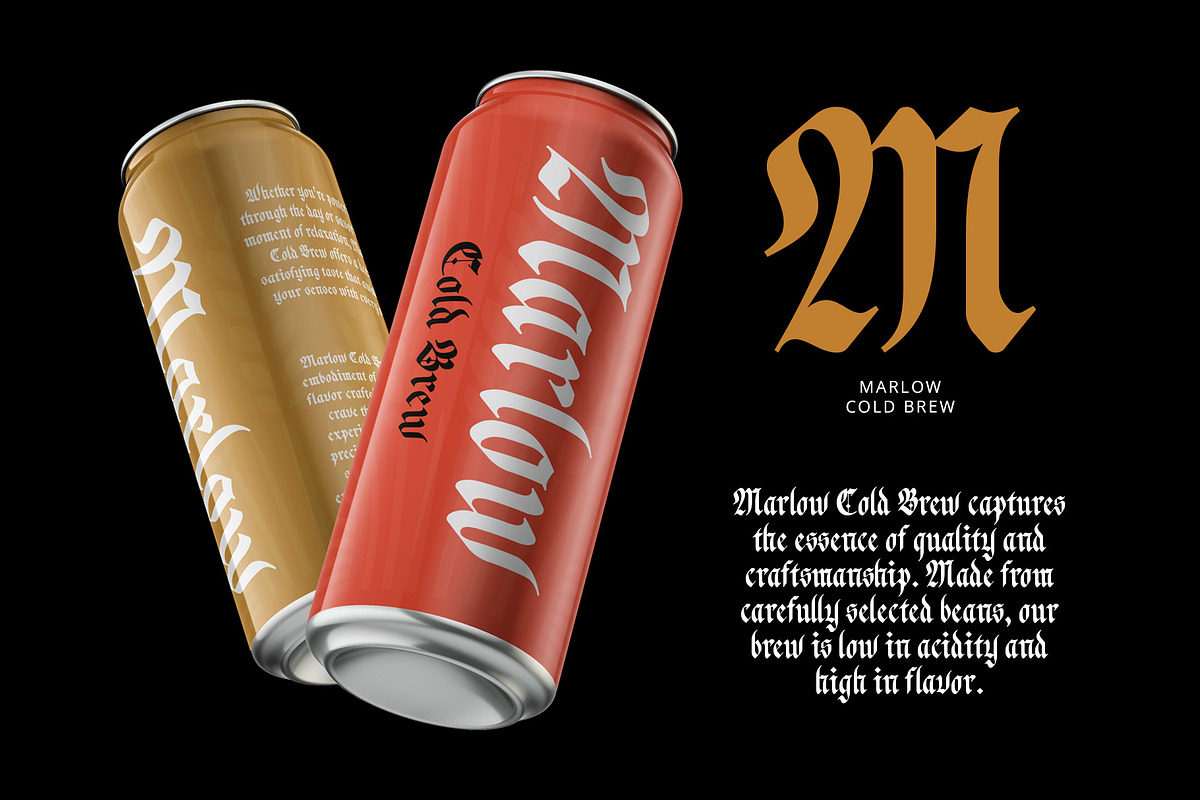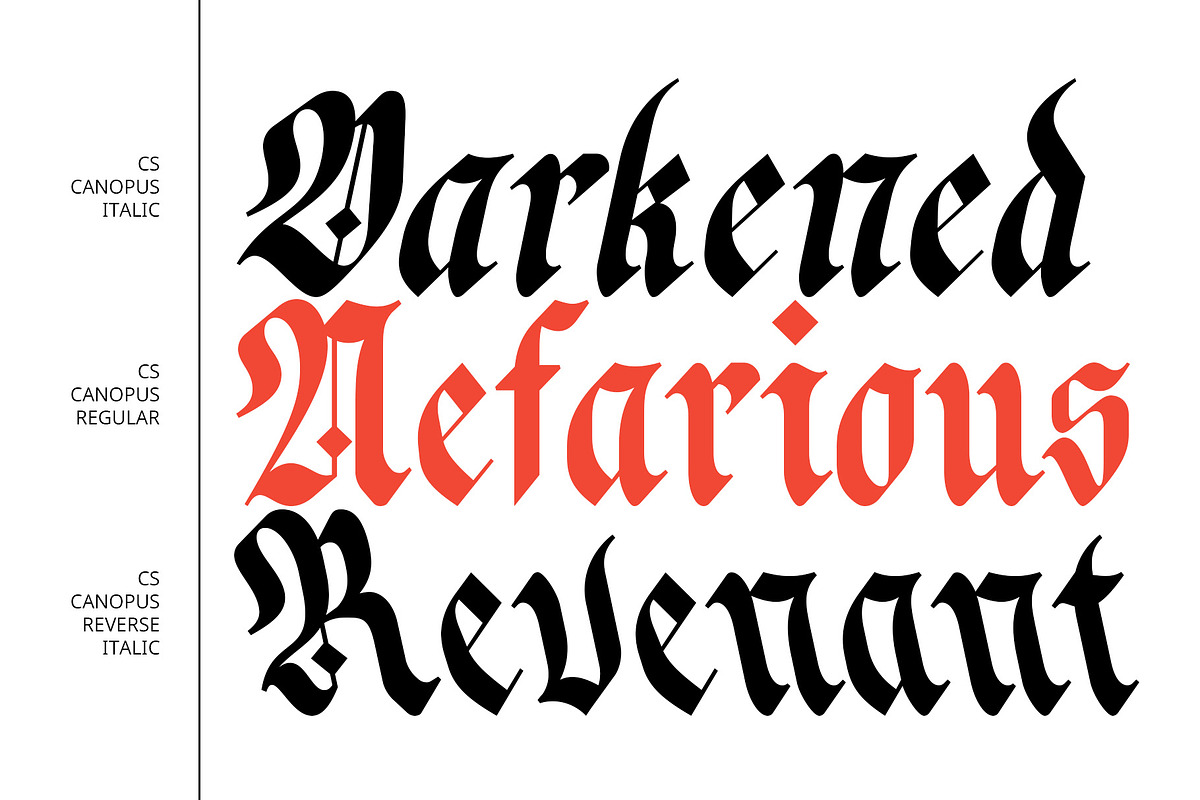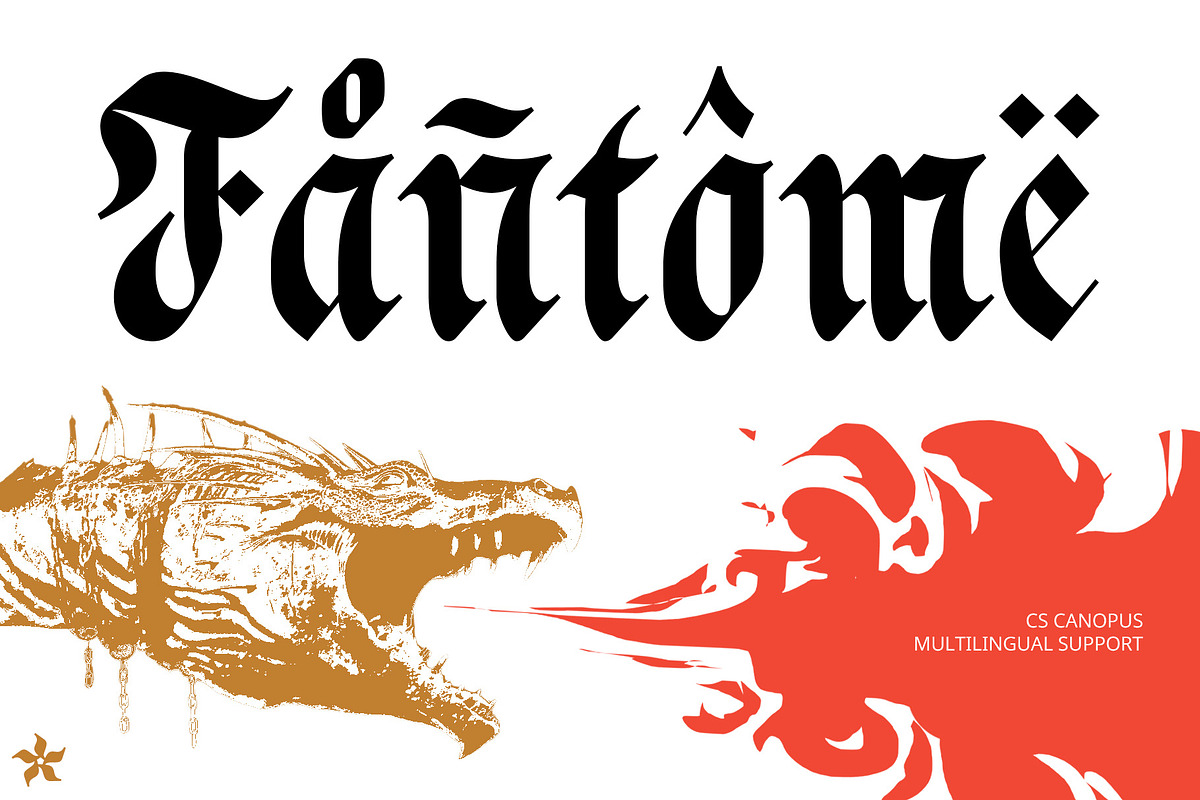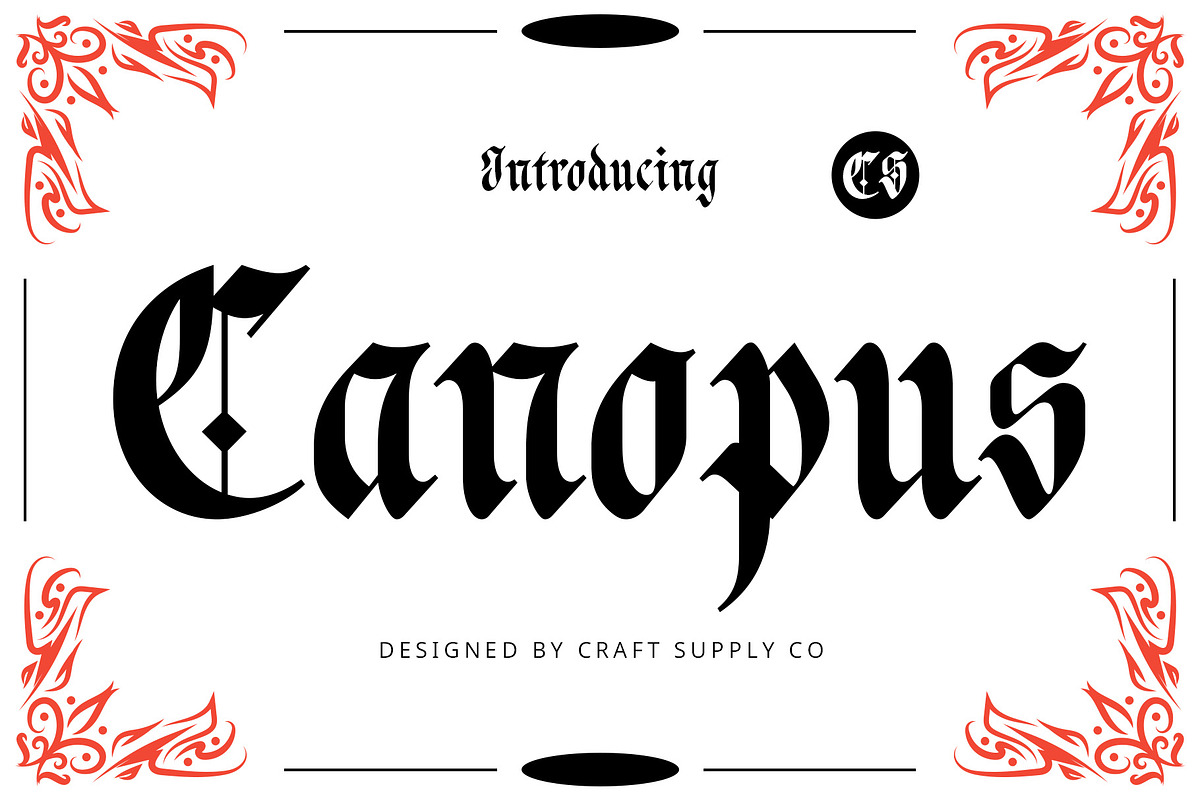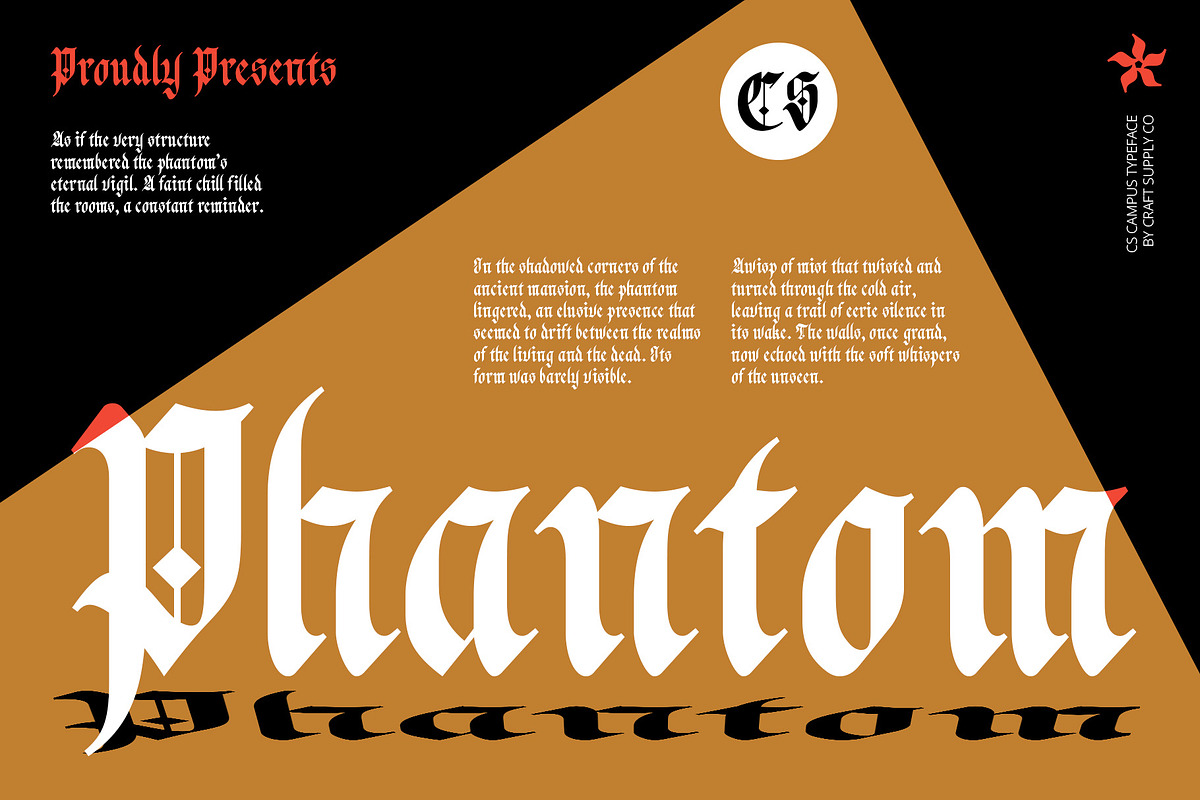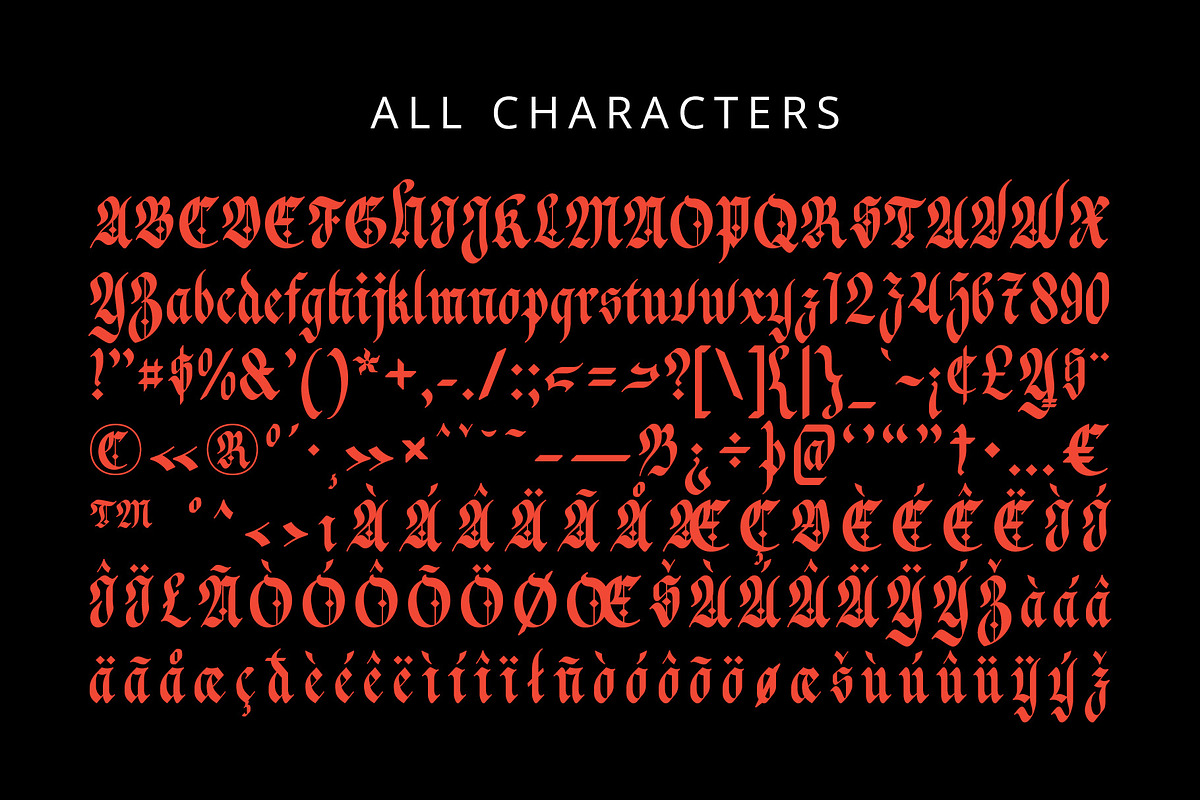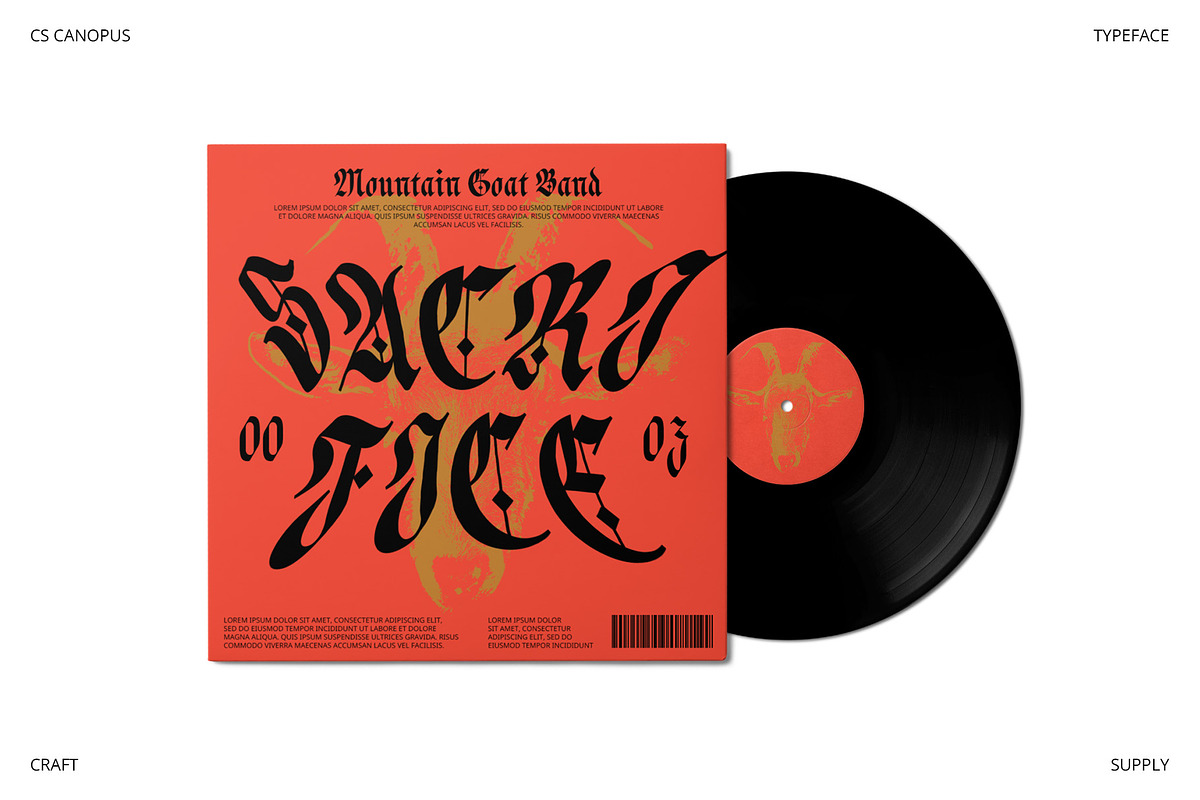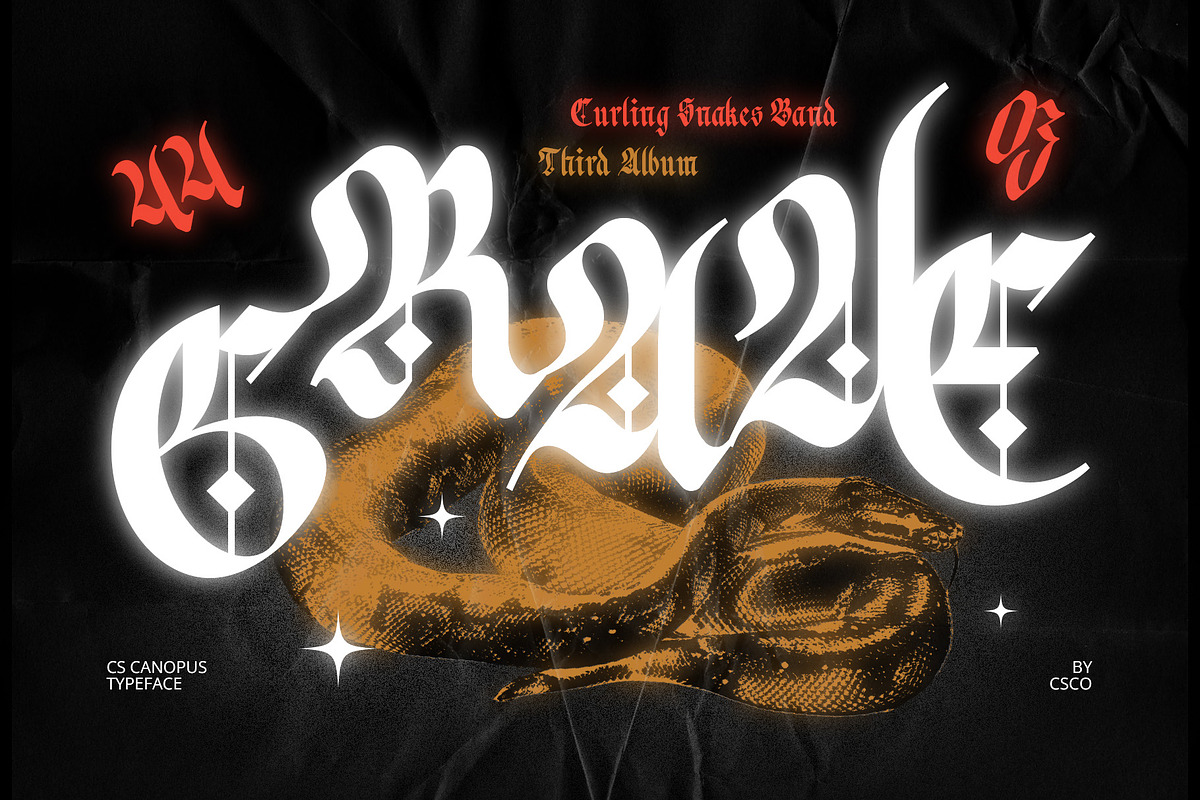
CS Canopus – Blackletter Font
CS Canopus – Blackletter Old English Font
Classic and Formal Aesthetic CS Canopus is a display serif font in the Blackletter Old English style, embodying the rich tradition and formality of classic Gothic typography. Its thick lines, sharp angles, and intricate details create a dramatic and authoritative presence, reflecting the elegance and gravity of historical aesthetics. The detailed craftsmanship of this font captures the essence of traditional design, making it a standout choice for a formal and classic look.
Authority and Elegance Ideal for projects that demand a touch of sophistication and gravitas, CS Canopus excels in applications such as formal invitations, historical documents, and vintage or cultural branding. Its bold, ornate design adds a sense of authority and timeless elegance, making it perfect for book titles, prestigious logos, and striking posters that aim to convey a strong, classic identity.
Versatile for Elegant and Historical Applications Whether you’re designing for a vintage-themed project or a formal occasion, CS Canopus Font provides the perfect blend of elegance and authority. Its gothic details ensure that your designs stand out with a sense of grandeur and historical significance.
- CS Canopus Regular
- CS Canopus Italic
- CS Canopus Reverse Italic